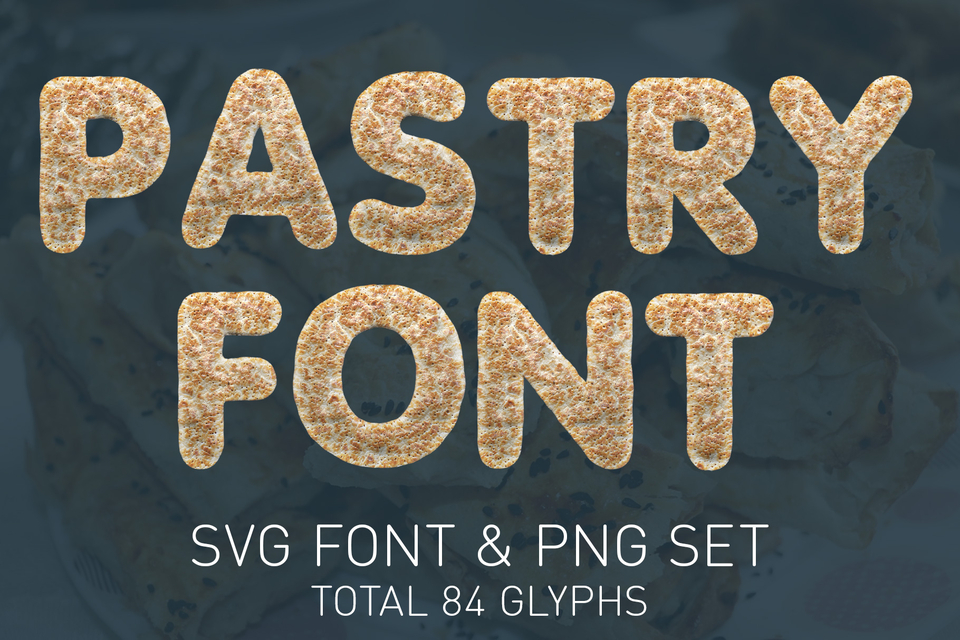
Pastry Color Bitmap SVG Font & PNGs
Introducing the delectable and mouth-watering Pastry Color Bitmap SVG Font and transparent PNGs, a unique and creative font that will add a touch of sweetness to your design projects. This font features 84 beautifully designed glyphs in a high-quality 2048x2048 pixel resolution transparent PNG format, providing exceptional clarity and detail.
The Pastry Color Bitmap SVG Font is perfect for a variety of design projects, including bakery branding, food packaging, social media graphics, and more. Its delicious and appetizing design is ideal for creating a warm and inviting atmosphere, perfect for promoting a range of culinary delights.
Whether you're a graphic designer, food blogger, or simply looking to add a touch of sweetness to your designs, the Pastry Color Bitmap SVG Font is the perfect choice.